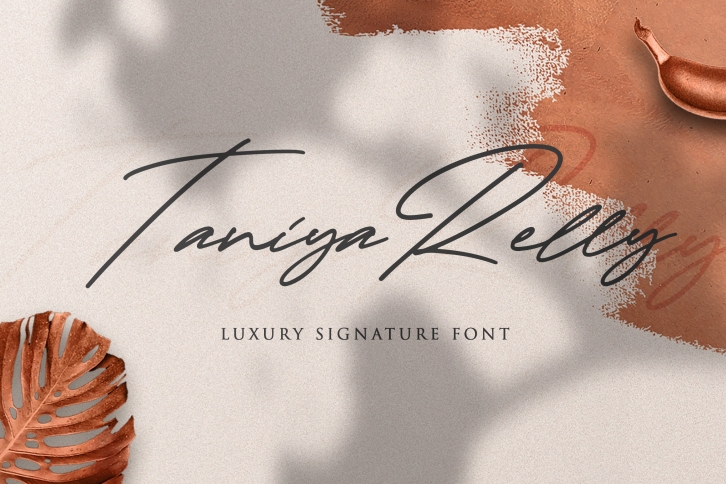
Taniya Relly is a great font that was designed by Stringlabscreative. Imagine the amount of combinations you can create using this font! The archive is 11.59 MB and it was released on May 5, 2020. Taniya Relly looks beautiful on wedding invitations, greeting cards, logos, posters, labels, t-shirt designs, logos, business cards and is perfect for use in ink or watercolor works, fashion, magazines, packaging and food menus, children's books and more!